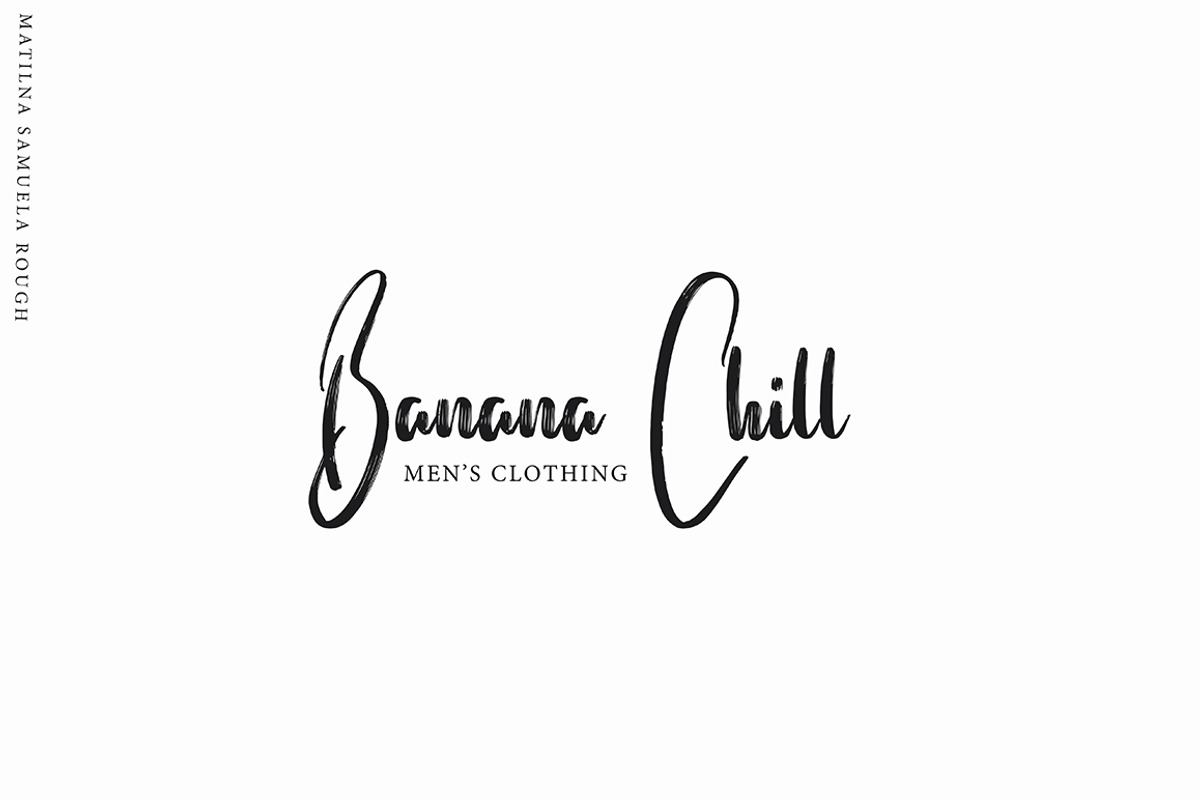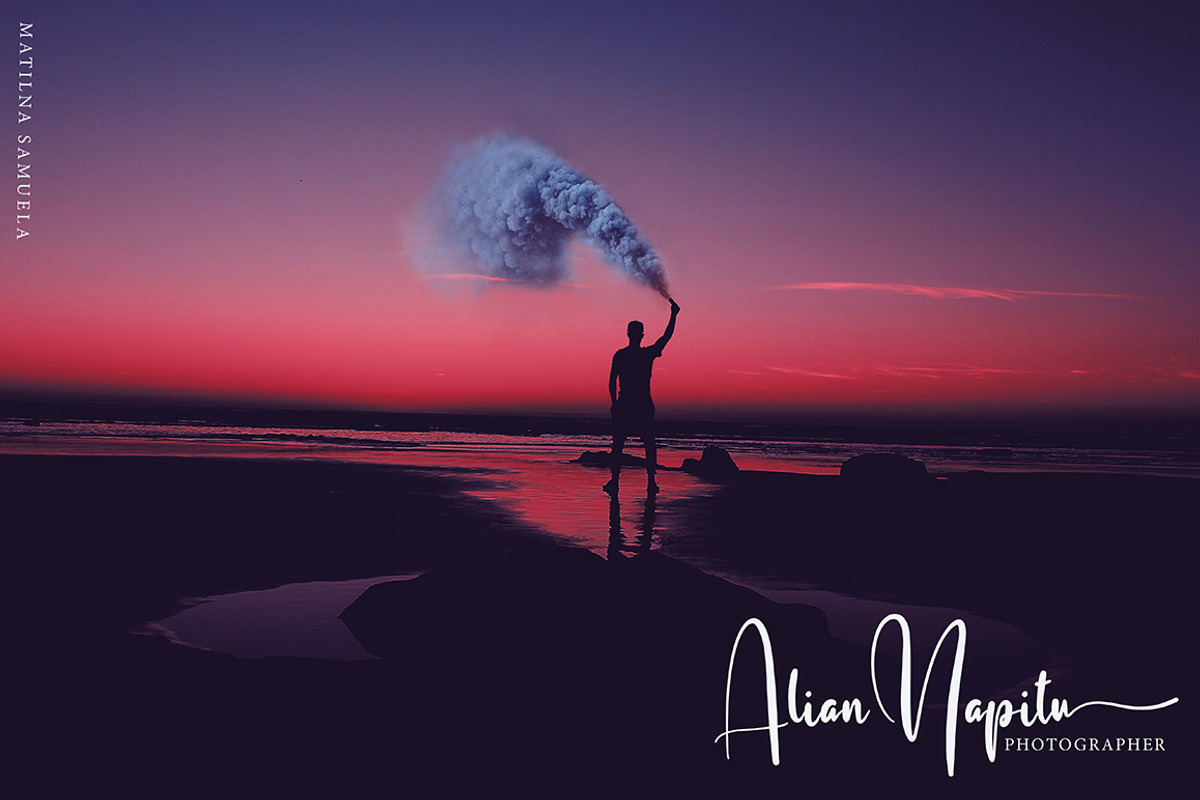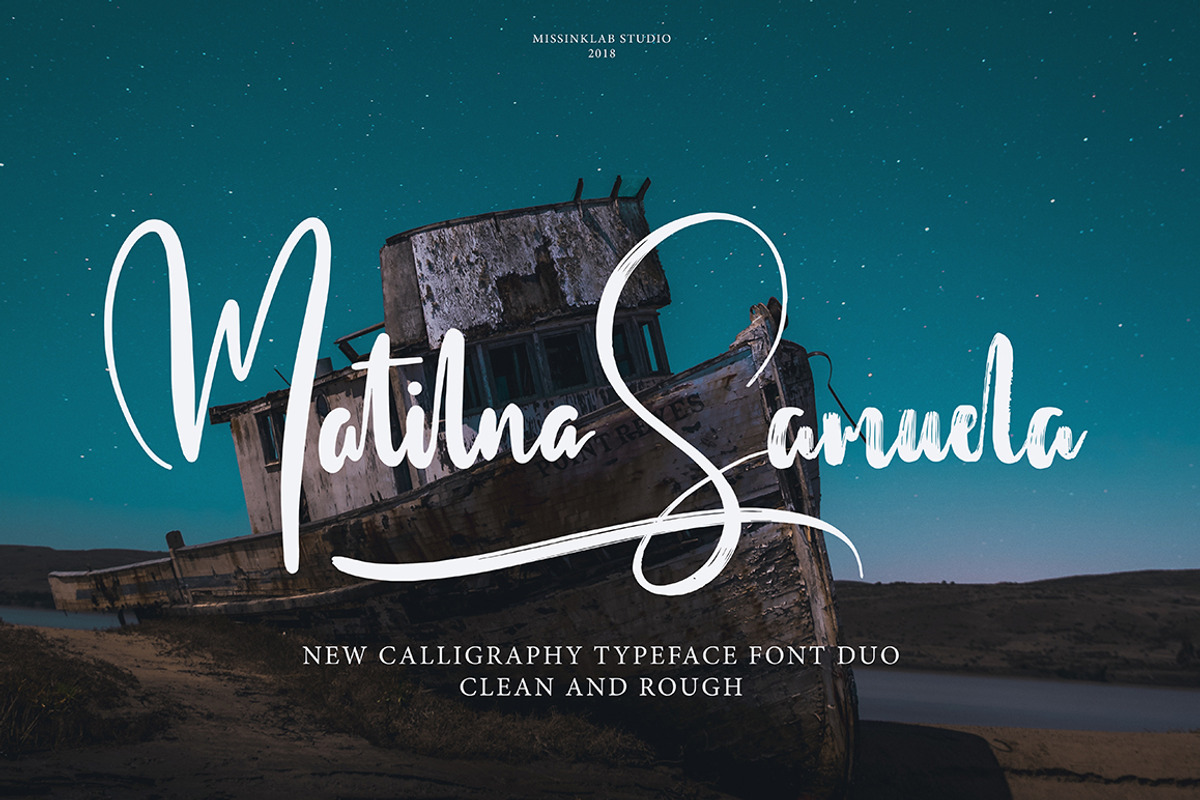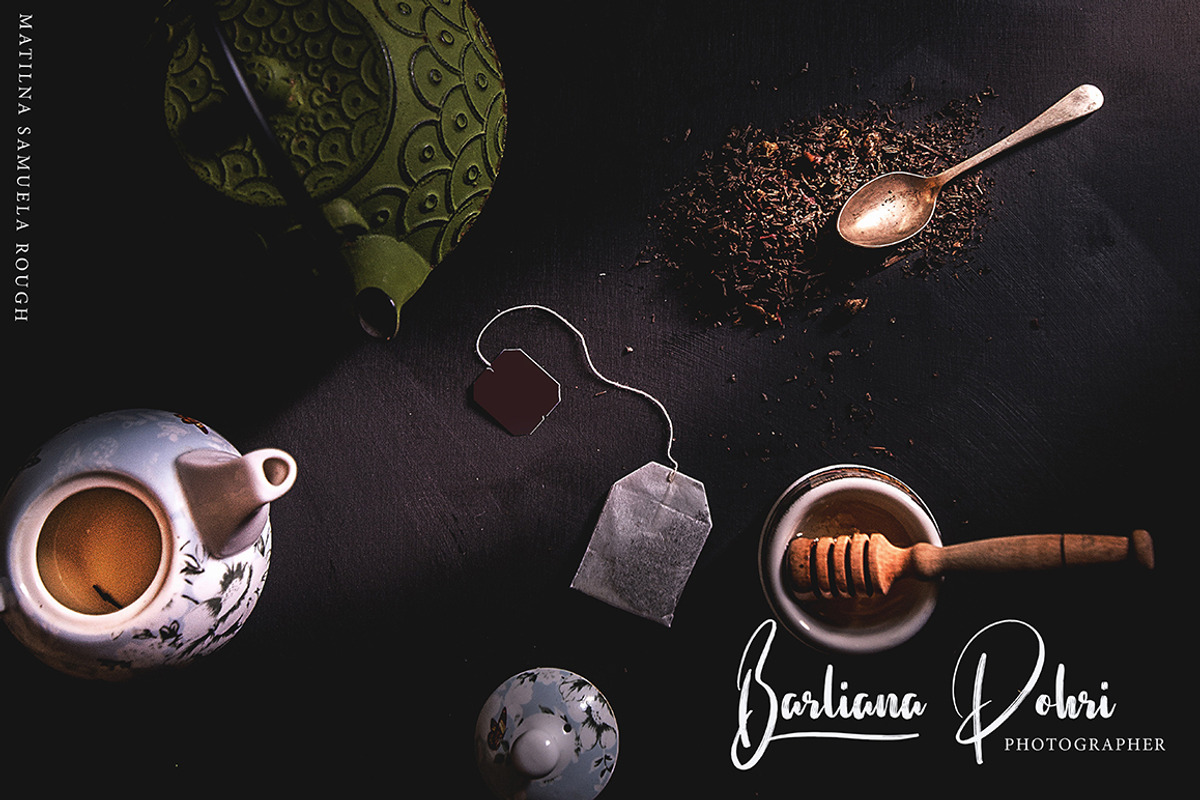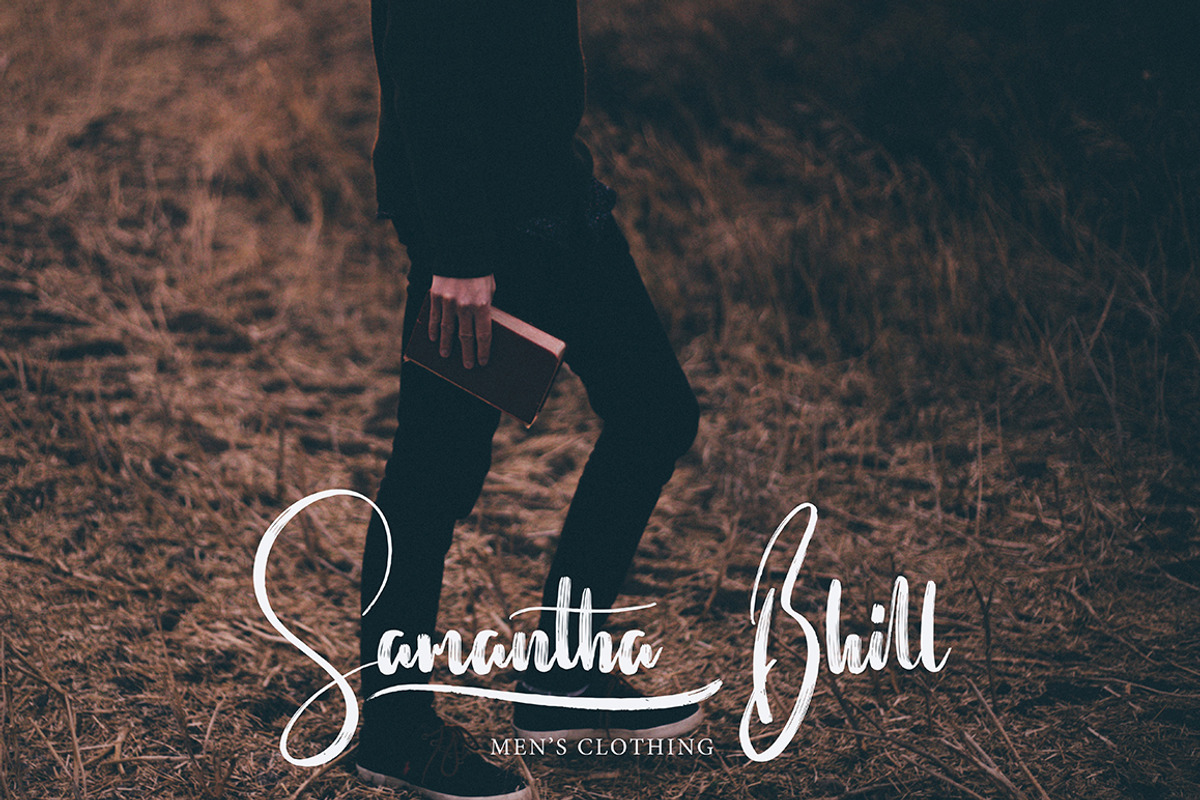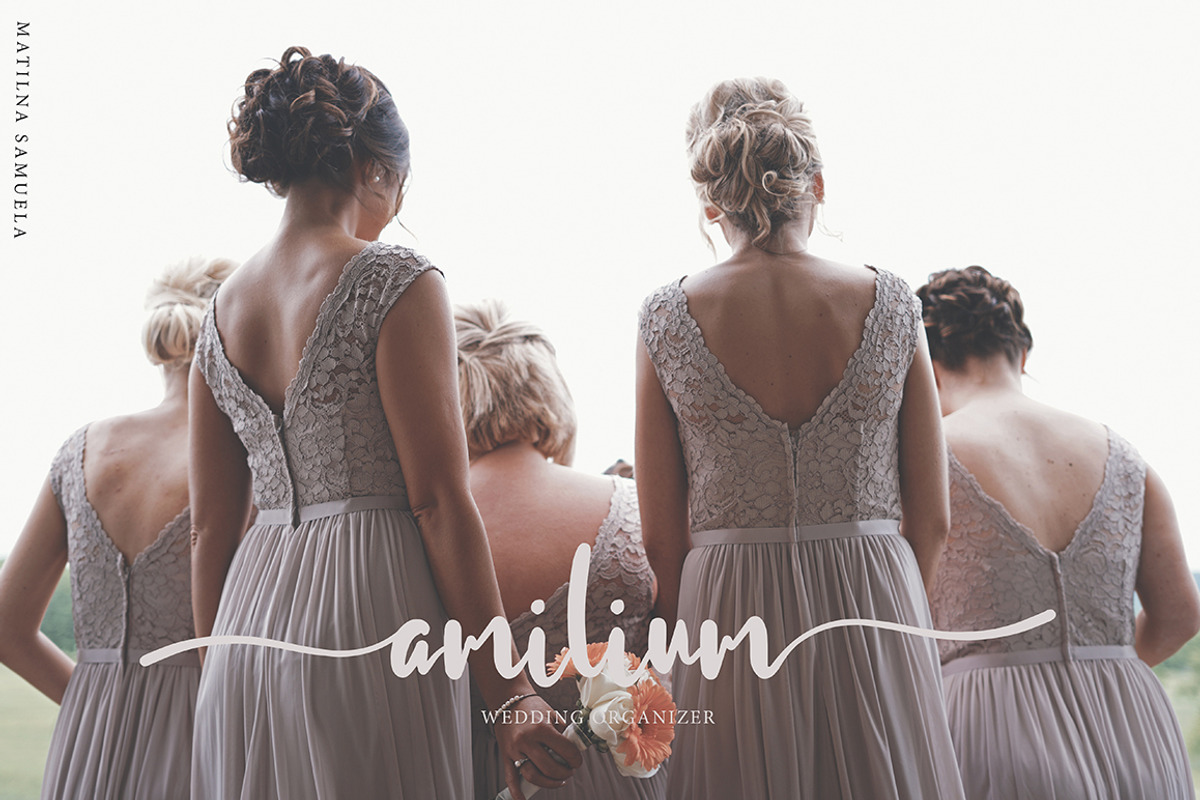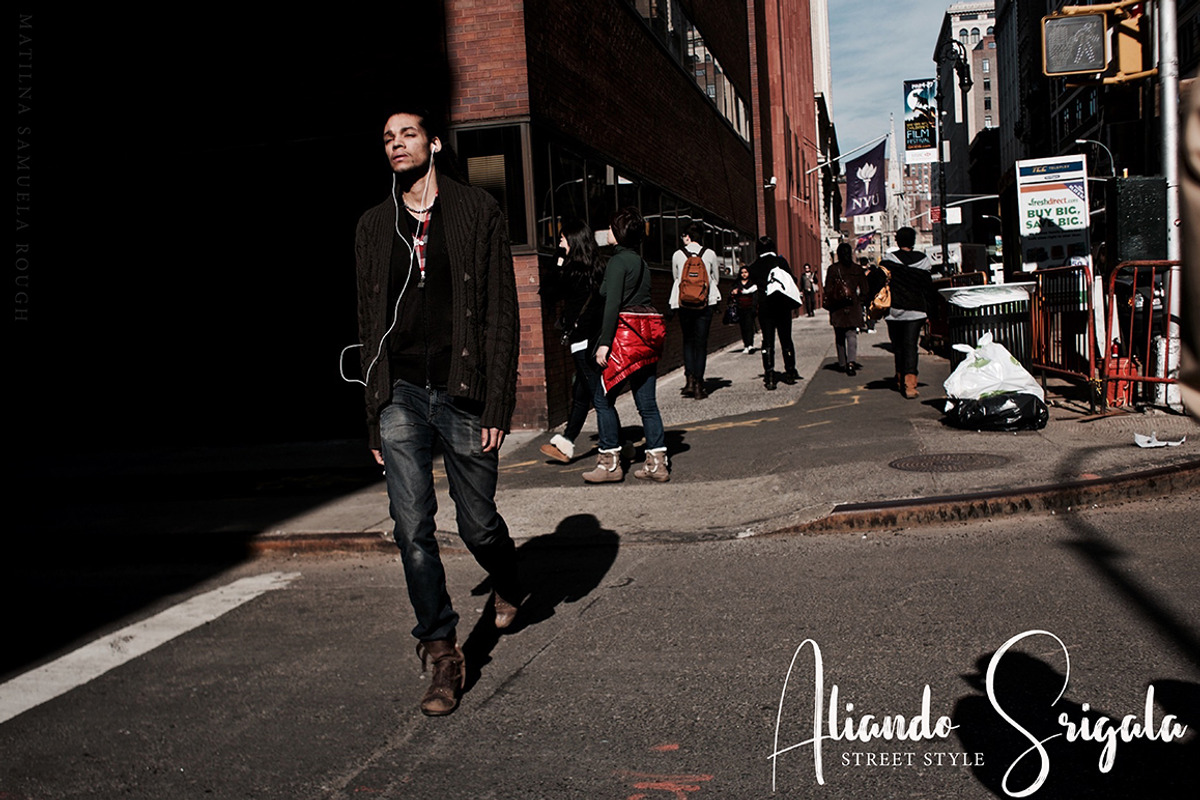
Matilna Samuela Font Duo Black Frida
Matilna Samuela modern script font with modern style, this font will perfect for many different project ex: quotes, logo, blog header, poster, banding, fashion, apparel, letter, invitation, stationery, etc...
Why Matilna Samuela Font Duo Black Frida is worth a look
Matilna Samuela Font Duo Black Frida by MissinkLab Studio fits naturally into Branding, posters, packaging, typography.